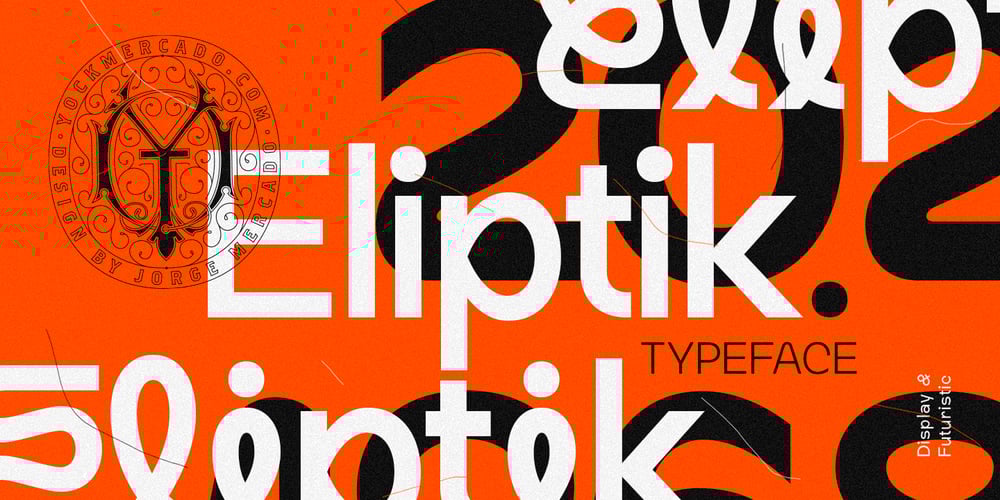
Eliptik Font Family was designed by Jorge Mercado and published by Yock Mercado. Eliptik contains 6 styles and family package options. Eliptik is a typeface with disruptive shapes, inspired by the aesthetics of technology from the 80s and 90s, when they had a very particular style of seeing the future. It is an ideal typeface for large size display texts and wordmarks, designed in upper and lower case, it also has many stylistic variables (OpenType features) that give it more memorable and unique personality.